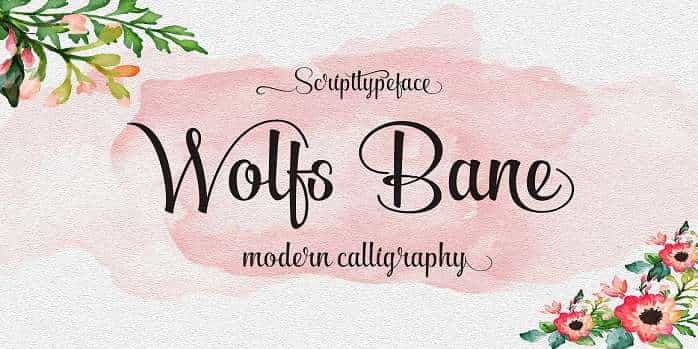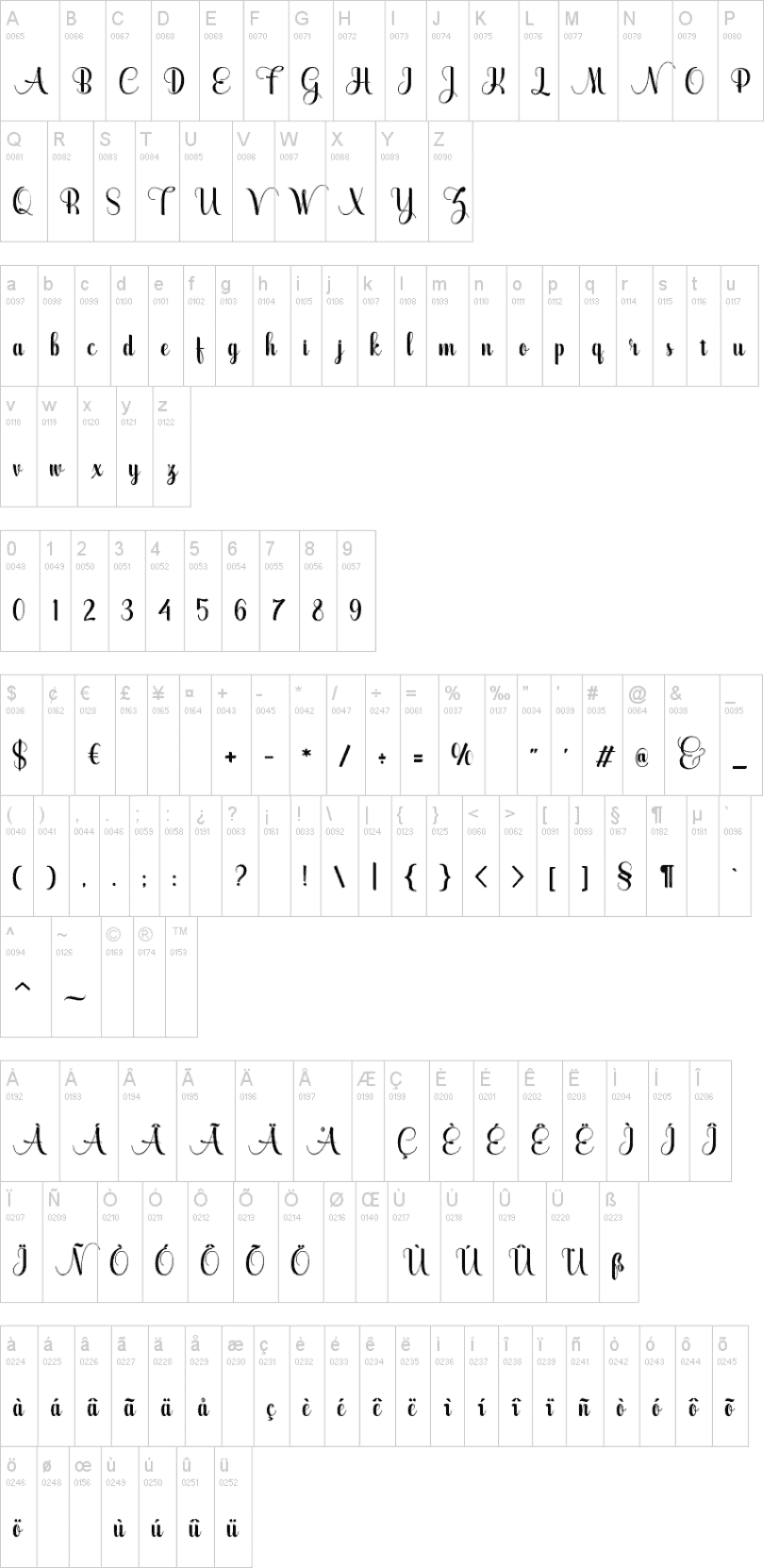
Wolf Bane Pro is another high quality Calligraphy font that is designed by groenstudio and is available for free download and for personal use only. The free version includes all the letters in both capital and small letters, and several special characters.